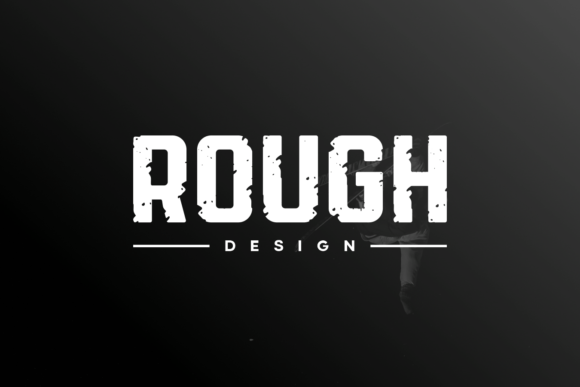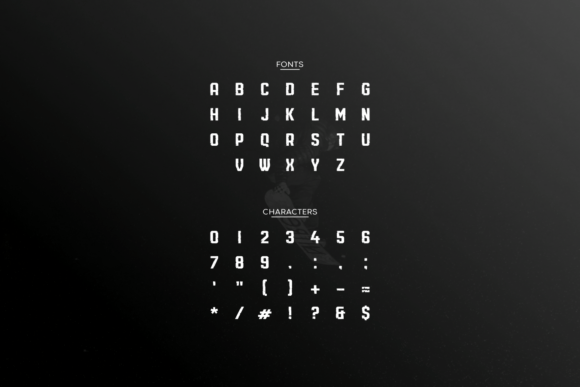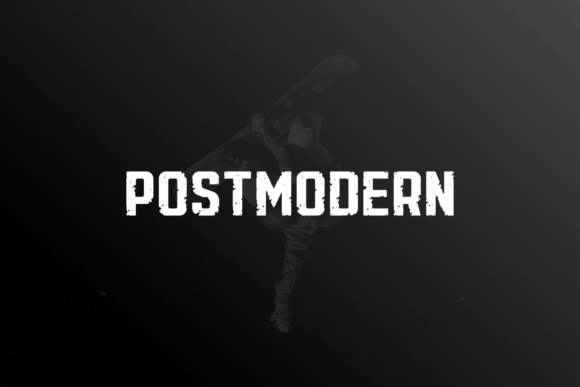
Introduction to Rogcoes Font
Have you ever stared at a blank canvas, eager to bring your creative project to life, only to feel overwhelmed by the endless possibilities? The struggle is real, but the right font can be the spark that sets your imagination ablaze. For designers and creatives, the perfect font can make all the difference in elevating their work from good to great.
Enter Rogcoes Font, a stylish and modern sans-serif font that has the potential to take your creative endeavors to new heights. With its sleek lines and sophisticated feel, Rogcoes Font is the perfect design resource for any project, whether you’re working on a logo, brochure, or website. And the best part? It’s available for free download, making it an accessible and valuable addition to your font library.
As a high-quality font with a transparent background, Rogcoes Font is perfect for designers who want to add a touch of sophistication and elegance to their work. Whether you’re a seasoned pro or just starting out, Rogcoes Font is an invaluable asset that’s sure to elevate your creations and leave a lasting impression.
Key Features of Rogcoes Font
- High-quality, unique font design perfect for creative projects requiring a distinctive touch.
- Comes with a transparent background, allowing for seamless integration into various design resources.
- Supports a wide range of languages, making it a versatile font for global design projects.
- Features a high-resolution design, ensuring crisp and clear text display even at larger font sizes.
- Perfect for use in logos, branding, and other design elements where a unique and creative touch is desired.
Honest Review: Rogcoes Font
I recently stumbled upon the Rogcoes Font while searching for a free download to use in a creative project. I was excited to see that it had a transparent background, which is always a bonus when working with design resources.
Here are some things that I think work well with Rogcoes Font:
- ✨ The font is highly legible, even at smaller font sizes.
- ✨ The transparent background makes it easy to use as a overlay or text effect.
- ⚠️ The font is only available in a few weights, so you may need to supplement it with other fonts to achieve the desired look.
Overall, I think the Rogcoes Font is a great design resource for designers who are looking for a high-quality, free font to use in their creative projects. While it may have a few limitations, I think it’s definitely worth checking out.
Rogcoes Font
Rogcoes Font is a versatile and creative design resource ideal for various projects. This high-quality font features a transparent background, making it perfect for designers who need a clean and minimalist look.
Using Rogcoes Font in Popular Design Tools
You can use Rogcoes Font in a variety of design tools, including:
– A popular graphic design platform ideal for creating social media graphics, presentations, and more.
– Industry-standard tools for creating high-quality images and graphics.
Tips for Getting the Most Out of Rogcoes Font
To get the most out of Rogcoes Font, consider the following tips:
- Use the font in conjunction with other design elements to create a cohesive look.
- Experiment with different font sizes and styles to achieve the desired effect.
- Combine Rogcoes Font with a transparent background to create a clean and minimalist design.
Rogcoes Font is ideal for a variety of design projects, including:
- Creating social media graphics and advertisements.
- Designing presentations and reports.
- Developing branding materials and logos.